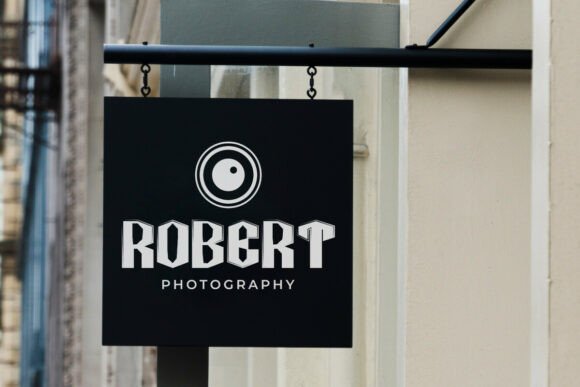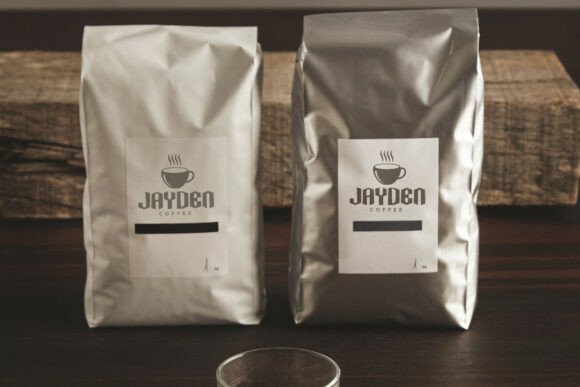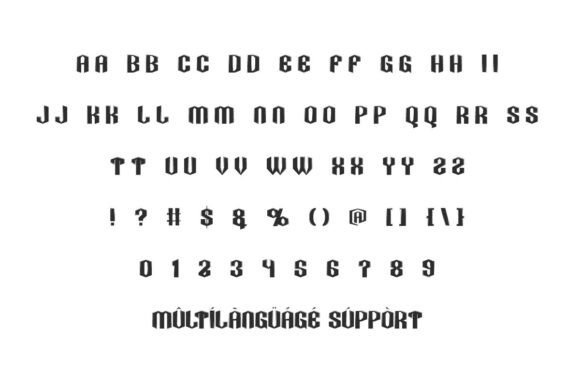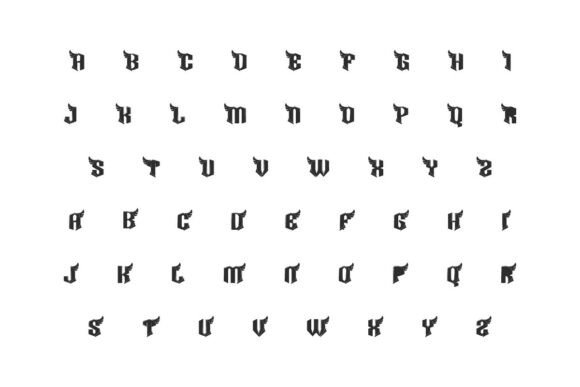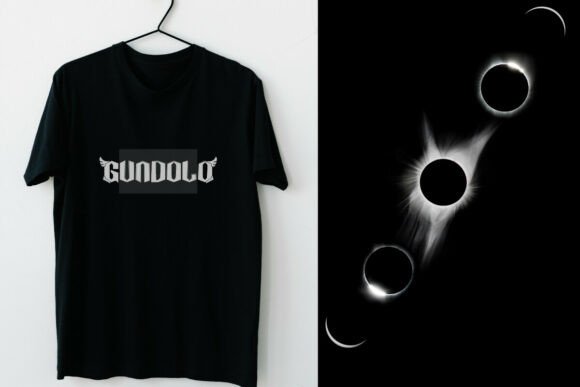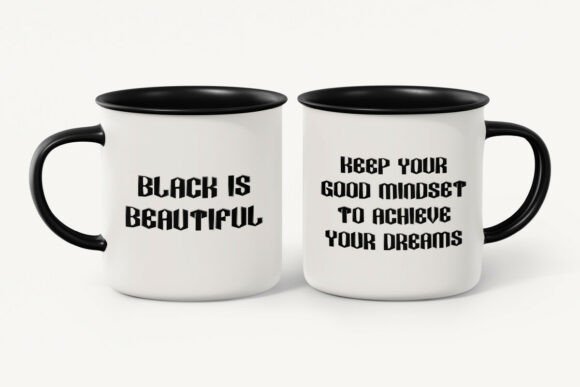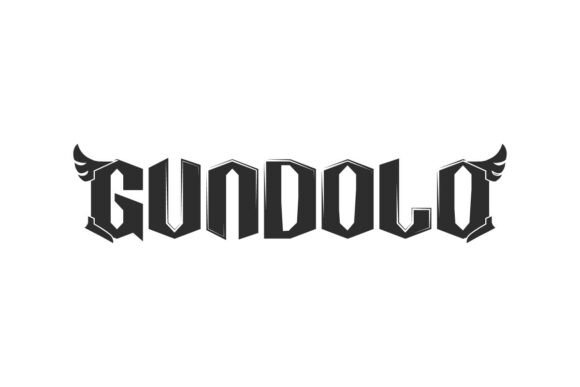
Unleash the Power of Gundolo Font: A Masterpiece of Modern Blackletter Design
In the realm of typography, few fonts have managed to capture the essence of medieval strength and contemporary flair as effectively as the Gundolo font. This majestic typeface is a testament to the fusion of traditional blackletter design with modern “winged” flourishes, making it a standout choice for designers seeking to imbue their projects with a sense of luxury, power, and prestige.
The Distinctive Features of Gundolo Font
The Gundolo font boasts a range of distinctive features that set it apart from other typefaces. Its sharp, chiseled edges evoke the ruggedness of medieval stone carvings, while its unique decorative ornaments on the lead and trailing characters add a touch of elegance and sophistication. These intricate flourishes not only enhance the aesthetic appeal of the font but also contribute to its versatility, making it suitable for a wide range of applications.
Ideal Applications for Gundolo Font
Given its bold, authoritative presence, the Gundolo font is particularly well-suited for projects that require a strong visual impact. Some of the ideal applications for this magnificent typeface include:
- Luxury Branding: The Gundolo font’s majestic appearance makes it an excellent choice for high-end luxury brands looking to convey a sense of prestige and exclusivity.
- Tattoo-Inspired Art: The font’s bold lines and decorative ornaments also make it a popular choice for tattoo-inspired art and designs.
- Heavy Metal Aesthetic: The Gundolo font’s dark, rugged appearance is perfectly in line with the aesthetic of heavy metal music and culture.
Design Tips for Maximizing Impact
To get the most out of the Gundolo font, designers should consider the following tips:
- Use it as a Centerpiece: The Gundolo font works best as a centerpiece for logos, apparel designs, and editorial headers, where its bold presence can be fully appreciated.
- Combine with Dark Themes: The font’s intricate carvings and architectural letterforms are particularly effective when paired with dark-themed layouts, creating a design that feels both ancient and cutting-edge.
Technical Details: PUA Encoding and Stylistic Features
The Gundolo font supports PUA (Private Use Area) encoding, providing seamless access to its full library of stylistic features. This means that designers can easily incorporate the font’s decorative ornaments and other unique features into their designs, giving them greater creative flexibility and control.
In conclusion, the Gundolo font is a masterpiece of modern blackletter design that offers a unique blend of medieval strength and contemporary flair. Its bold, authoritative presence makes it an excellent choice for designers seeking to create high-impact designs that convey luxury, power, and prestige. With its intricate carvings, architectural letterforms, and support for PUA encoding, the Gundolo font is an indispensable tool for designers and crafters looking to push the boundaries of typography and design.
Whether you’re working on a luxury branding project, a tattoo-inspired art piece, or a heavy metal-themed design, the Gundolo font is sure to make a lasting impression. So why settle for an ordinary font when you can unleash the power of Gundolo and take your designs to the next level?